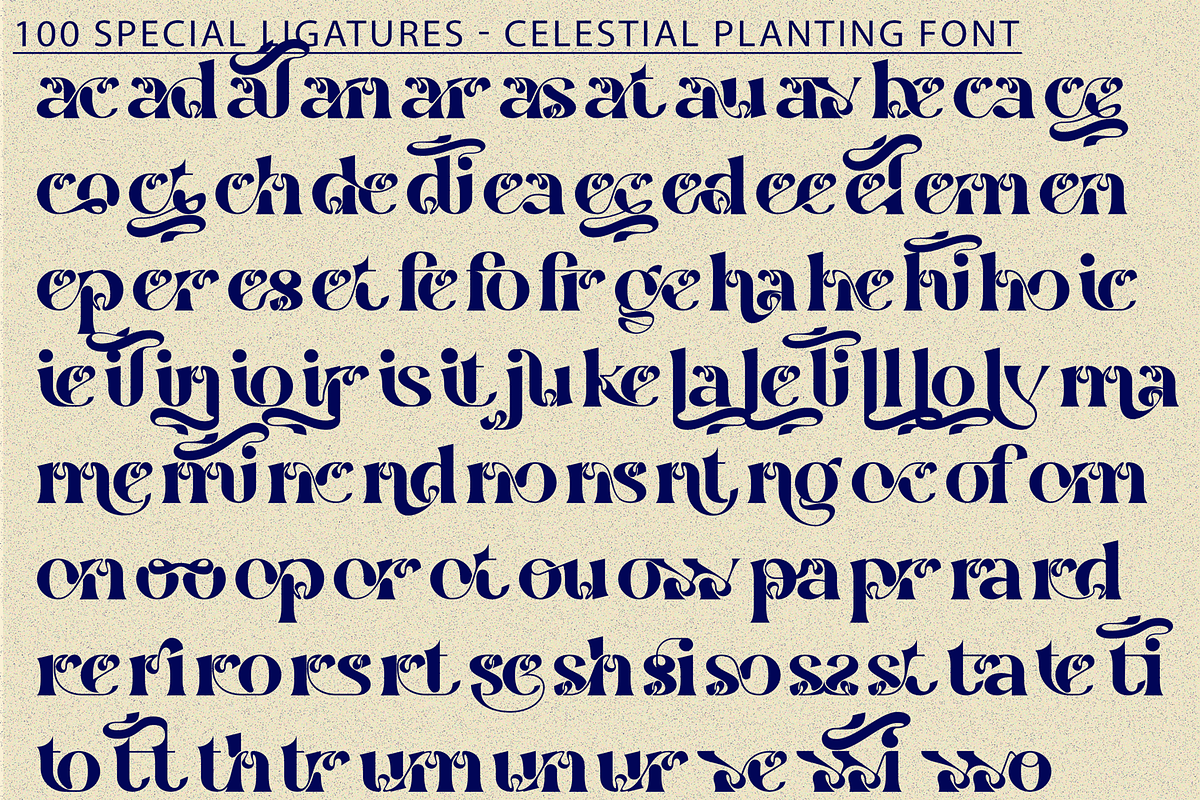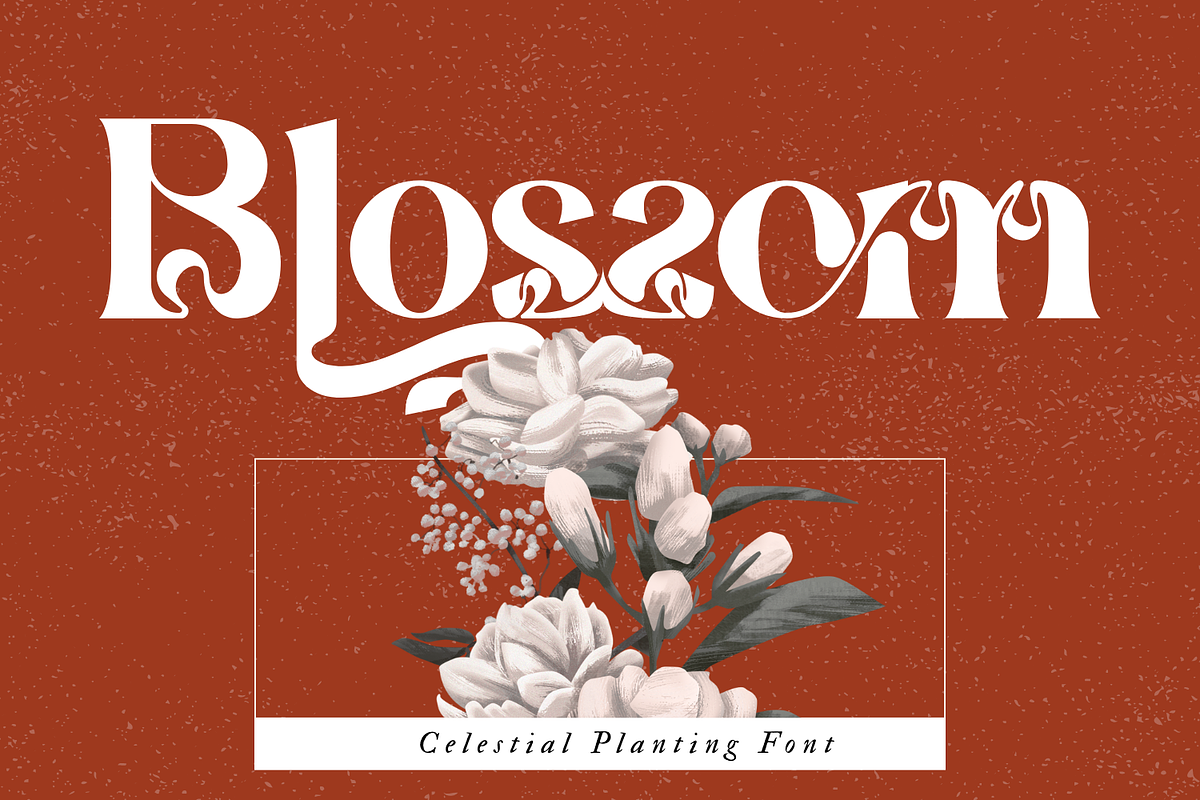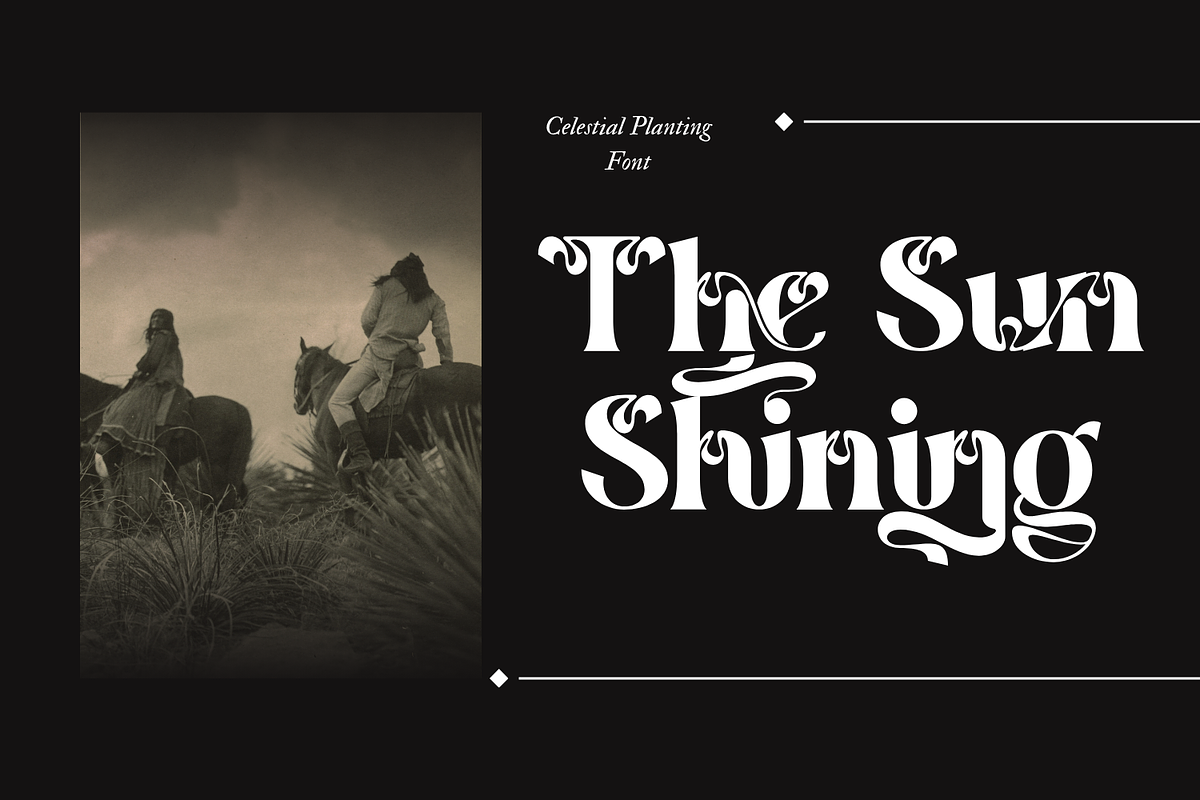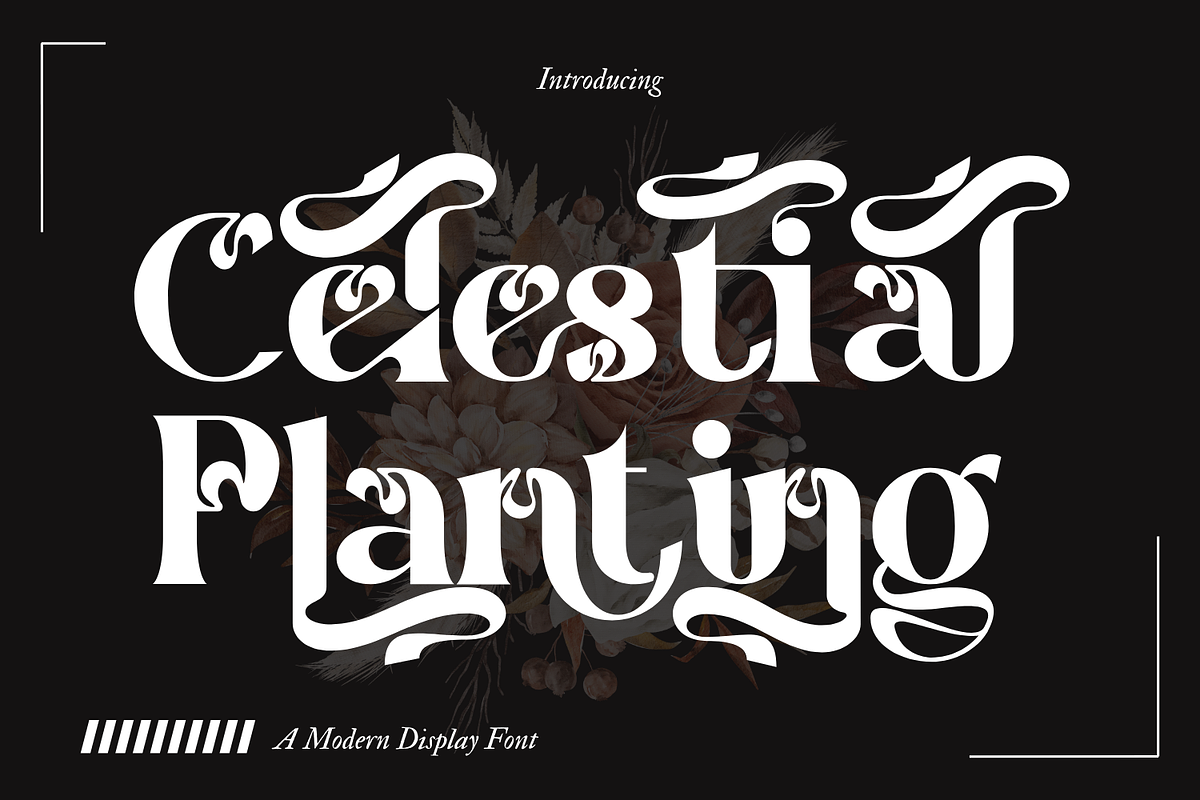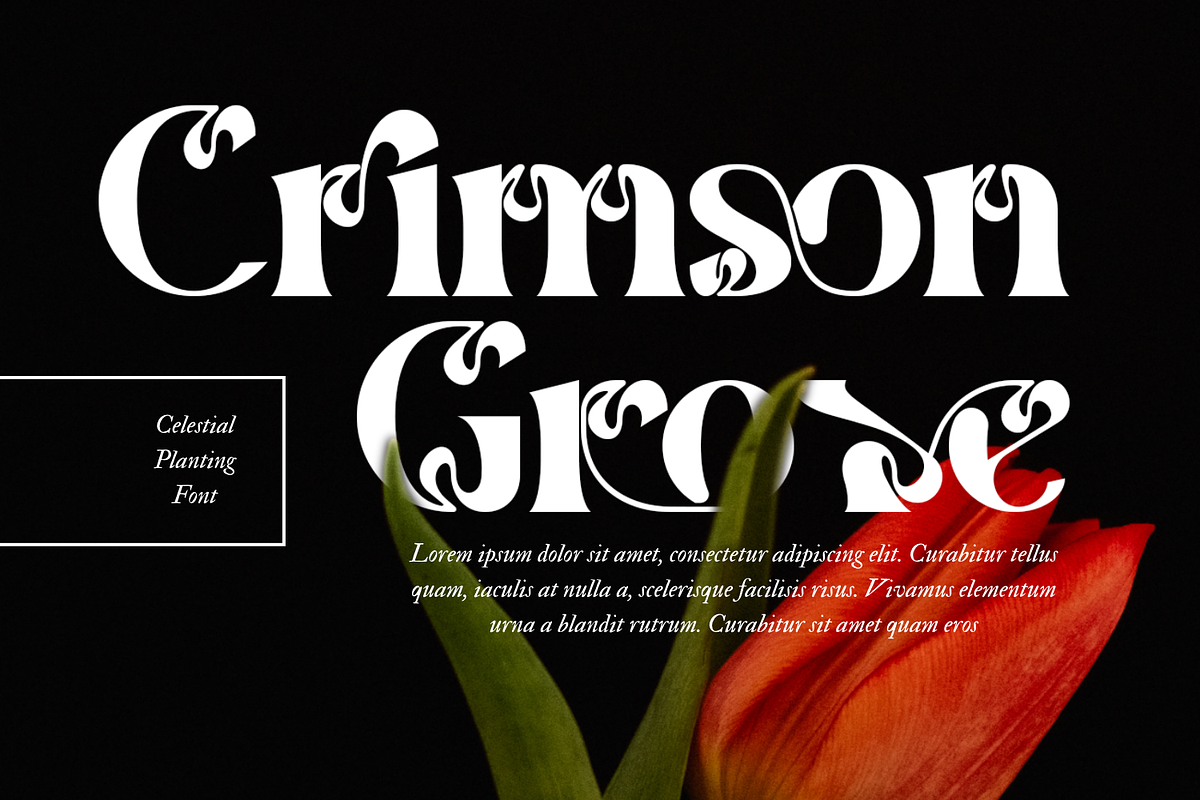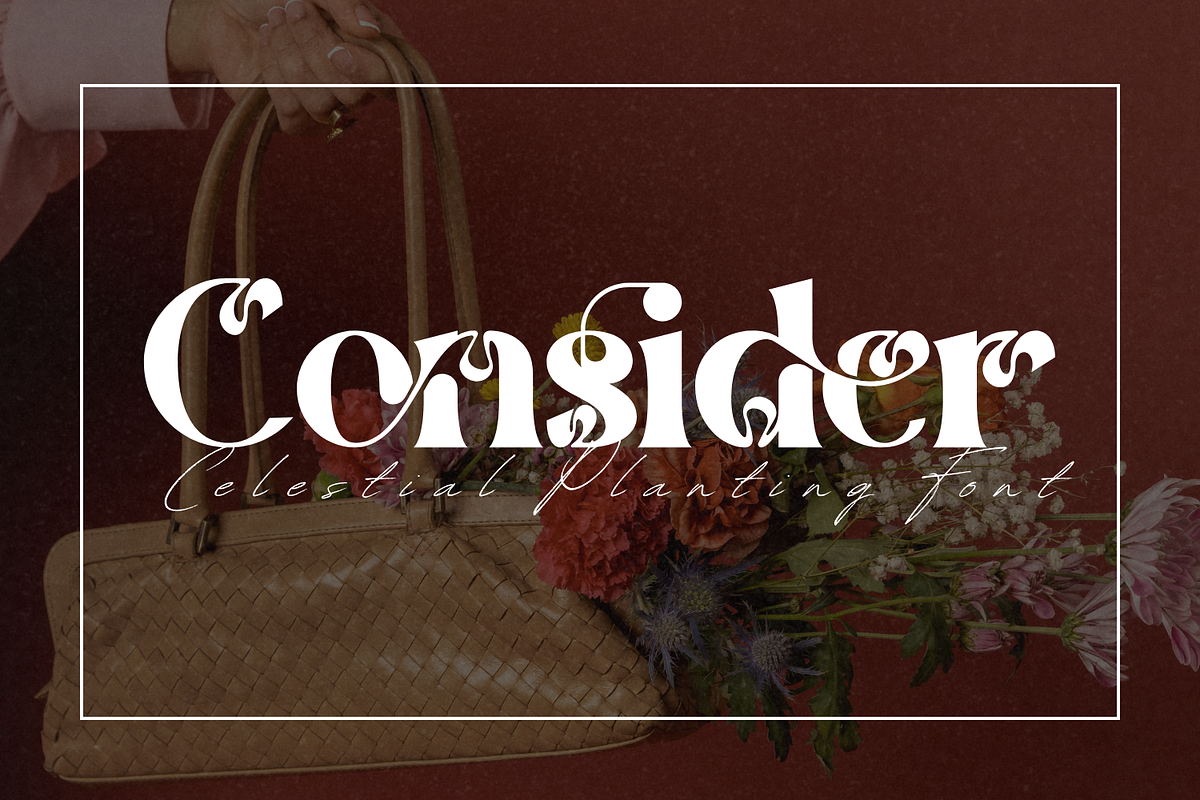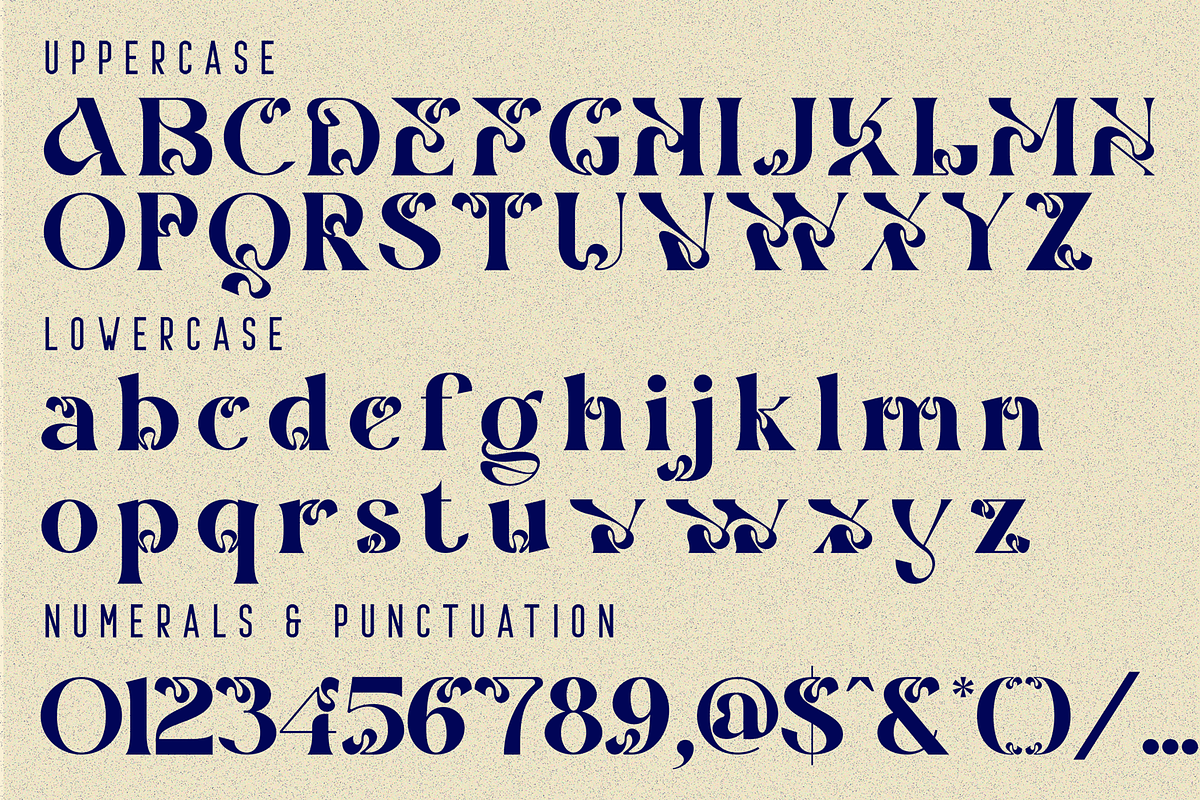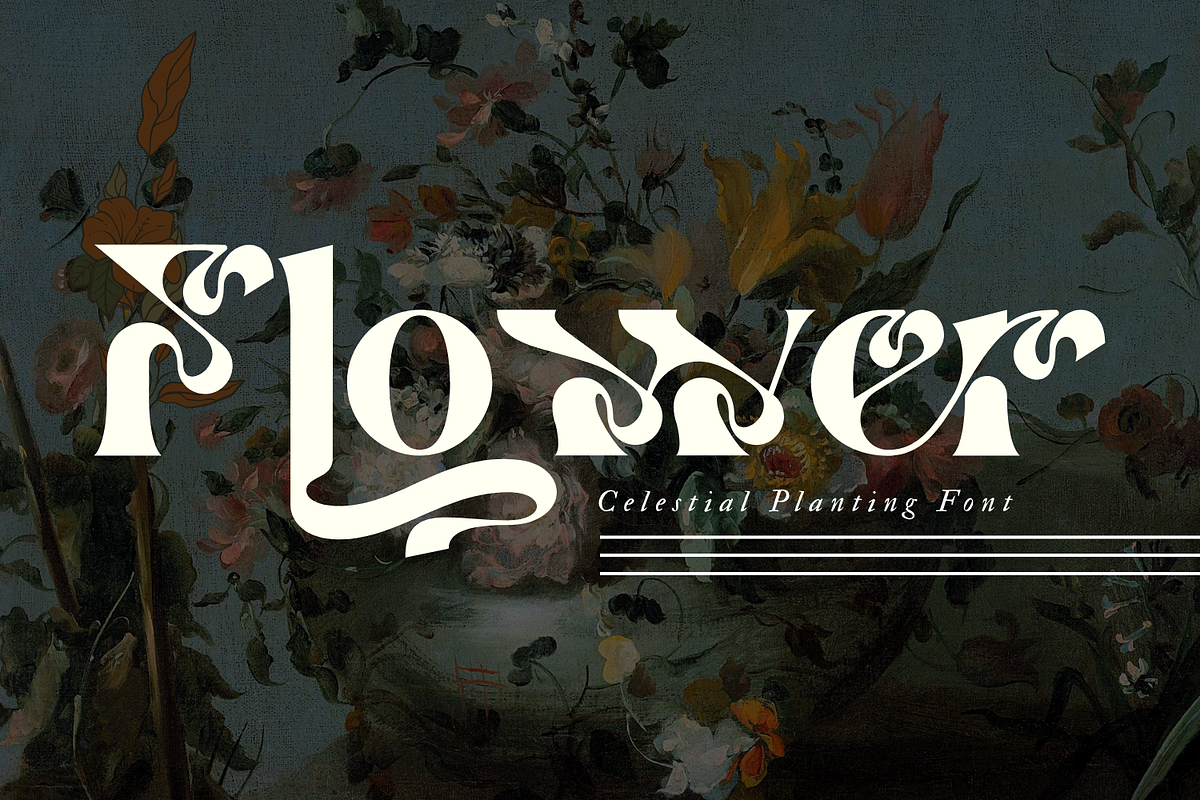
Celestial Planting - Modern Serif
Celestial Planting - Modern Serif Font - A Mystical Modern Psychedelic Serif, a captivating display serif that dances between vintage Art Nouveau elegance and bold psychedelic flair. Designed for creators who want their words to feel like art, this font brings a sense of fluid movement and organic beauty to any project. Celestial Planting is defined by its dramatic high contrast and rhythmic, swirling curves. It is the perfect choice for branding, ethereal poster designs, editorial headlines, and mystical packaging. Whether you are aiming for a "Celestial" aesthetic or a retro-revival look, this font adapts with effortless sophistication.
🔤Features:
- Uppercase & Lowercase Letters
- Around 100 Special Ligatures & Alternates
- Accented Characters for multilingual support
🔤About 100 ligatures combined with Stylistic Alternates Font:
ac ad al an ar as at au av be ca ce ch co ct de di ea ec ed ee el em en ep er es et fe fo fr ge ha he hi ho ie ic il in io ir is it ju ke la le li ll lo ly ma me mi nc nd ne ng no nt ns oc of om on oo op or ot ou ow pa pr ra rd re ri ro rs rt se sh si so ss st ta te th ti to tr tt um un ur ve wi wo